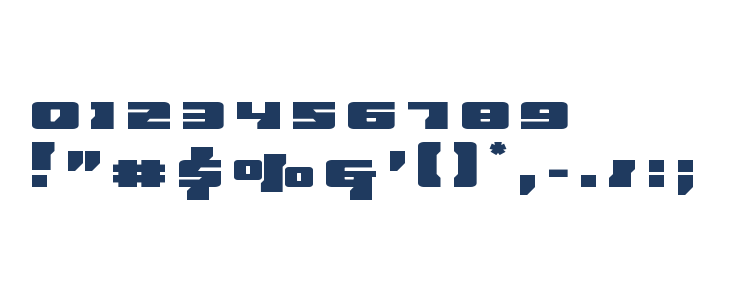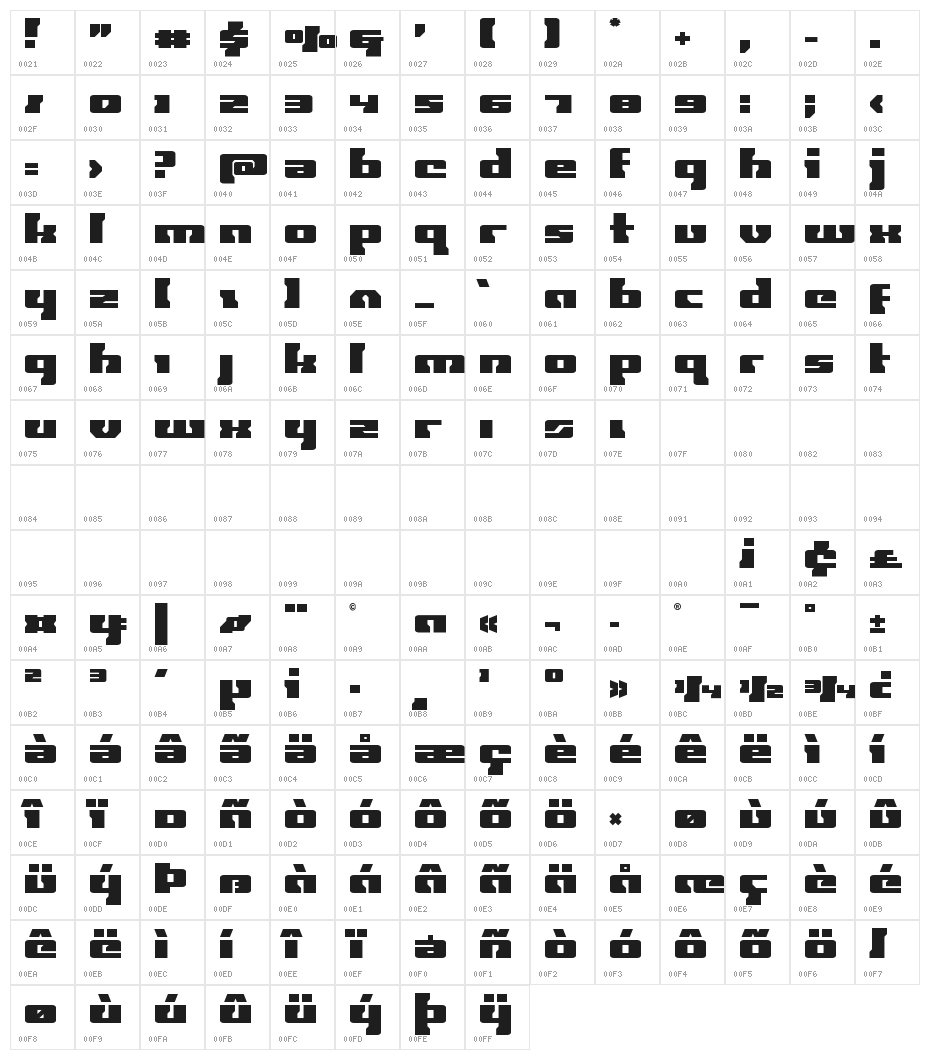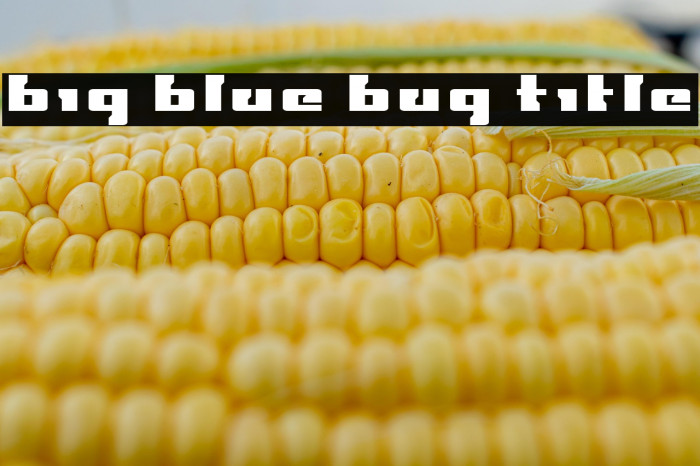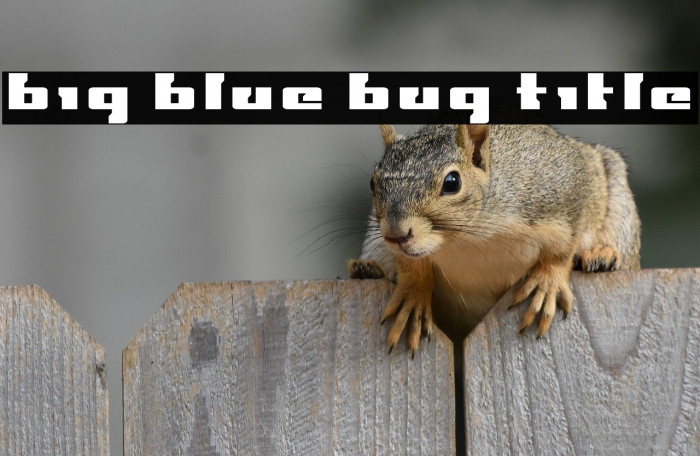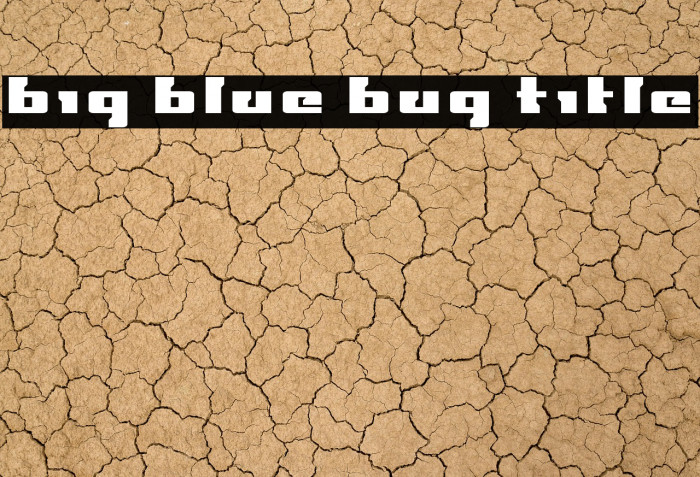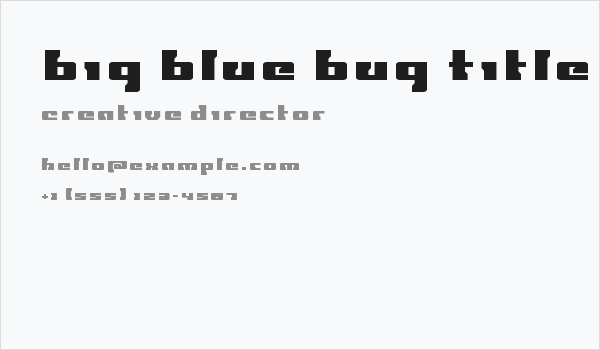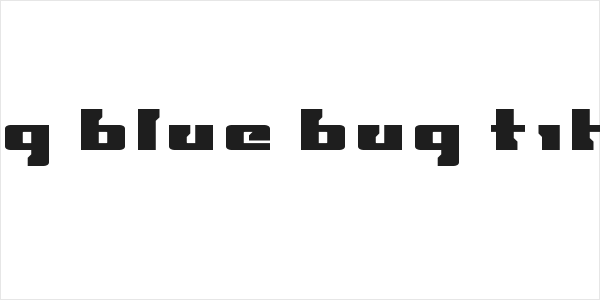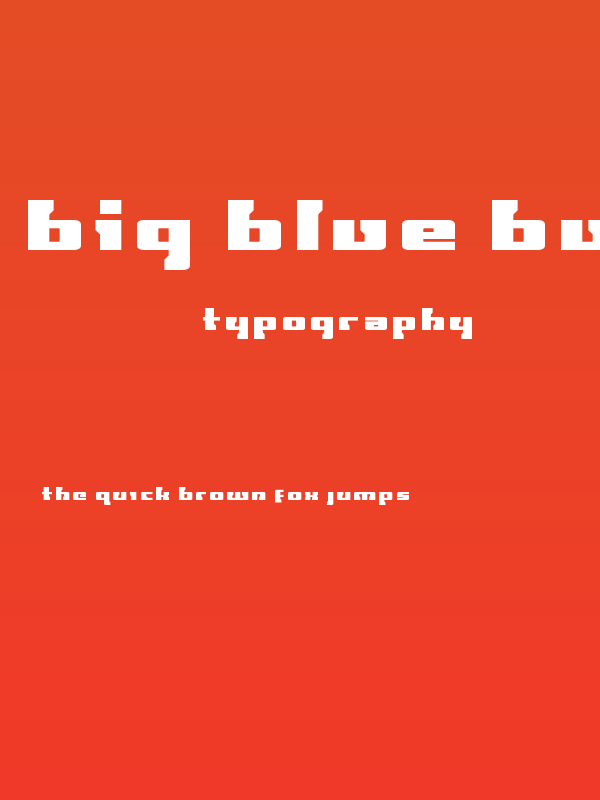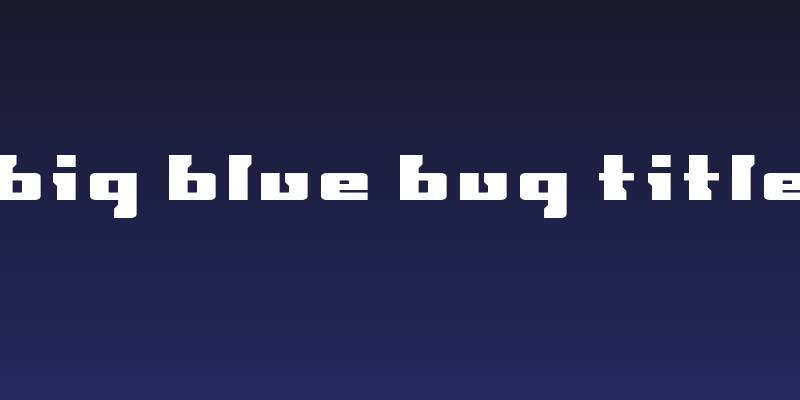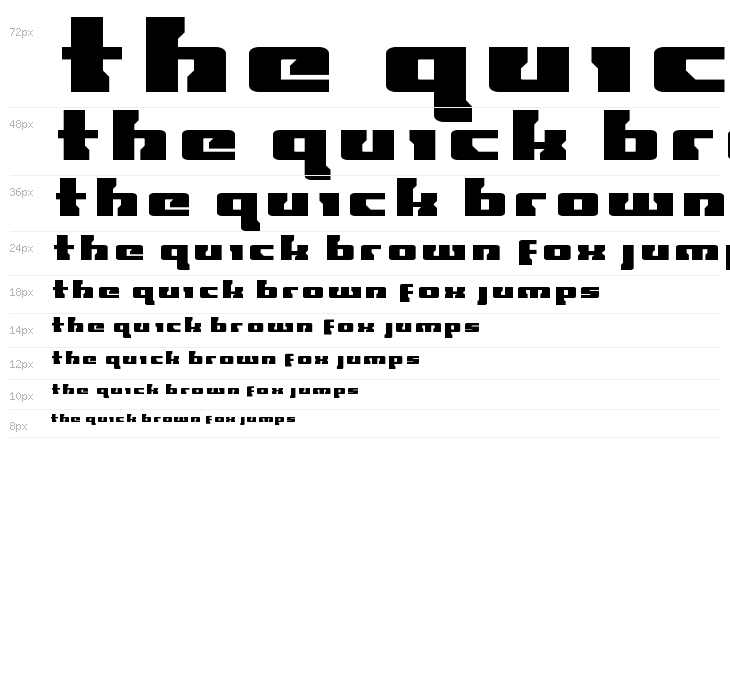
Big Blue Bug Title Font
Big Blue Bug Title Description
This font features a bold and blocky design with a strong geometric influence. The characters are uniformly thick, giving it a robust and impactful appearance. The edges are sharp and angular, contributing to a modern and industrial aesthetic. The uppercase and lowercase letters maintain a consistent style, with slight variations in height and width to distinguish them. The numbers and special characters follow the same design principles, ensuring a cohesive look across all glyphs. This font is well-suited for projects that require a strong visual presence and a contemporary feel.